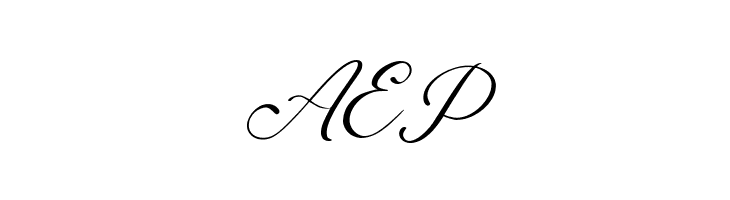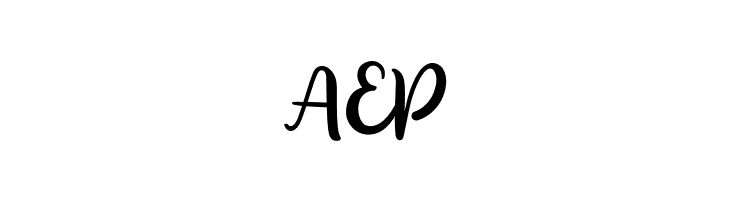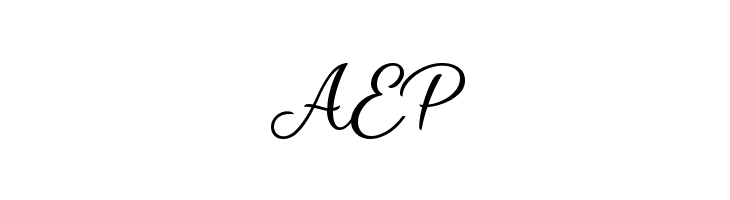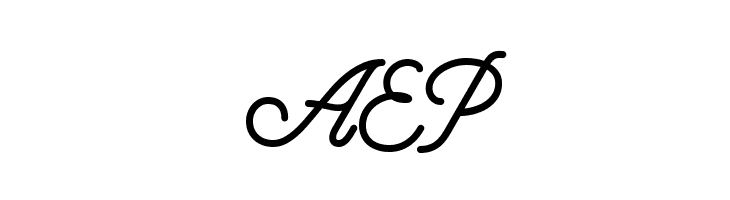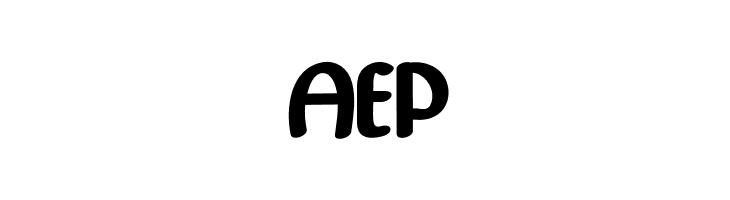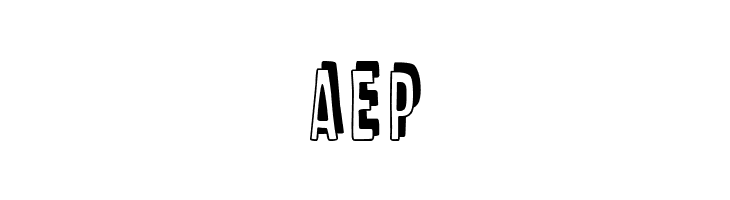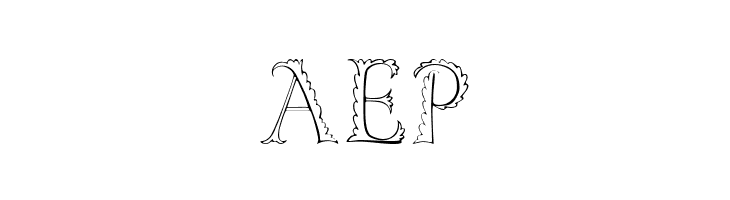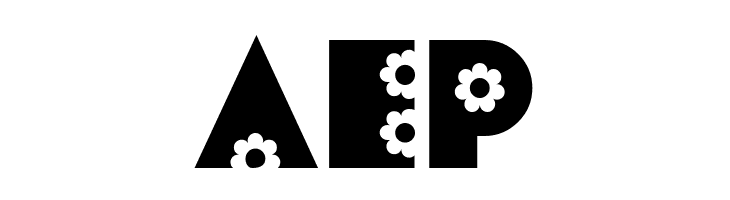
• Florante at Laura Italic
A bold, blackletter-style font with sharp, angular strokes and a medieval aesthetic.
• FloRaTialen
A decorative font with thorn-like embellishments and high contrast strokes.
• Floren
A bold, playful handwritten font with rounded, smooth characters.
• FLORENA
A bold, decorative font with floral patterns inside each character.
• Florenberg
A bold, expressive script font with dynamic strokes and a handwritten feel.
• Florencesans Comp
A modern, geometric sans-serif font with uniform width and clear readability.
• Florencesans Comp Bold
A bold, compact sans-serif font with a modern and clean design.
• Florencesans Comp Bold Italic
• Florencesans Comp Italic
A modern sans-serif italic font with a sleek, dynamic style.
• Florencesans SC Comp
A modern, tall, and narrow sans-serif font with clean lines and high legibility.
• Florencesans SC Comp Bold
A bold, compact sans-serif font with a modern and impactful style.
• Florencesans SC Comp Bold Italic
A bold, italicized, and condensed font with a dynamic and strong appearance.
• Florencesans SC Comp Italic
A modern, italic, condensed sans-serif font with uniform stroke width.
• Florencia Blonde
A dynamic and elegant script font with flowing, connected letterforms.
• Florenius
An artistic and decorative font with intricate, whimsical designs.
• Florensa Demo Regular
A modern, geometric sans-serif font with balanced proportions.
• Florentea
A flowing, handwritten font with elegant, continuous strokes.
• Flores del Sol Demo Regular
An elegant script font with flowing, cursive letters and a classic style.
• Flores MMX
A bold, decorative font with floral motifs integrated into geometric letterforms.
• floresrosx
A bold, brush-like font with dynamic, hand-painted strokes.
• Florest Free Regular